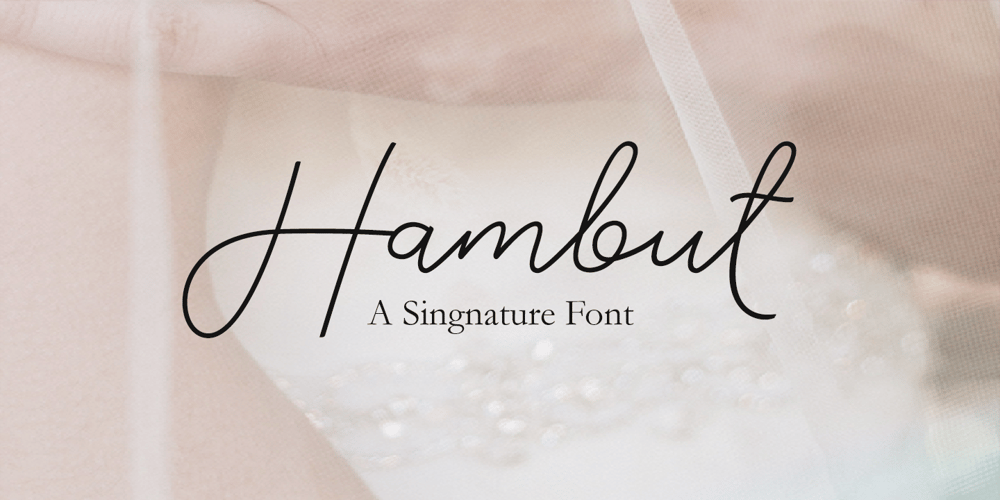
Hambut
Hambut font
Hambut Font Family was designed by khaidir and published by Gatype. Hambut contains 1 styles and family package options. Hambut is a handwritten font that includes lots of cute dingbats to decorate your quotes, social media posts, greeting cards, etc. Make a combination of uppercase sans and lowercase scripts and design beautiful projects!Hair is available for various uses. You can use it for commercial projects, monetized social media posts, blogs, digital publications and branding.